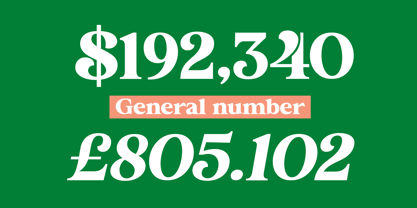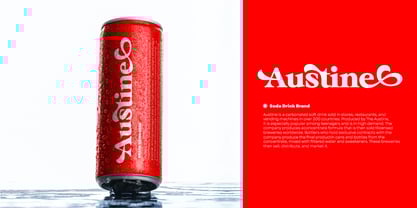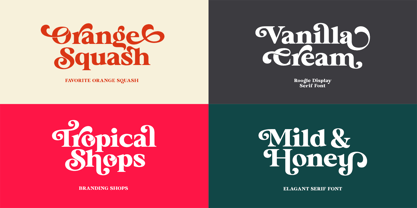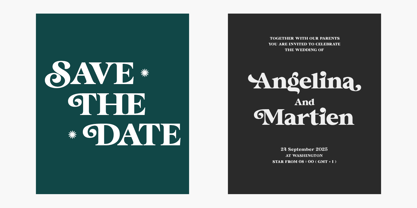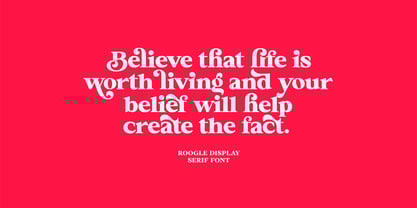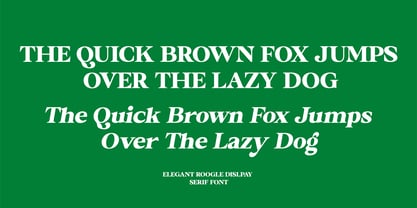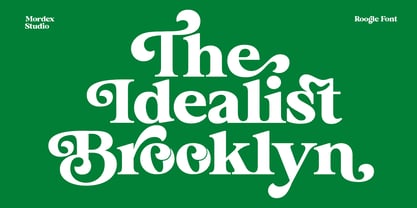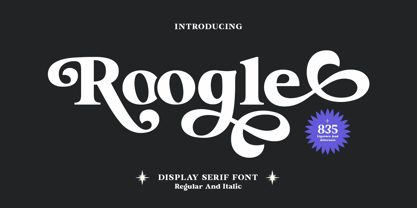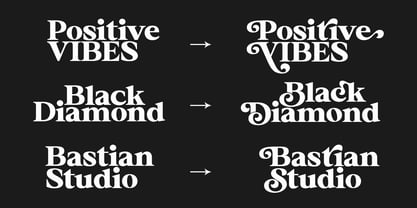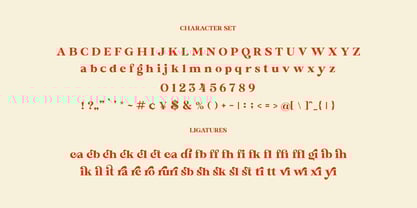
Roogle
by Mordex Studio
The Roogle Font Family was designed by Teuku Hamzah and published by Mordex Studio. Roogle contains 2 styles and family package options.
Roogle is a bold, vintage-style serif font with strong characters and soft features. Roogle Font comes with standard and alternate letterforms, letter styles, and standard and optional ligatures. The font is PUA-encoded, allowing you to use the additional glyphs in most graphic design software. This font is perfect for fashion design projects, logo design, branding, wedding design, product packaging design, advertising, products, labels, photography, social media, and more.